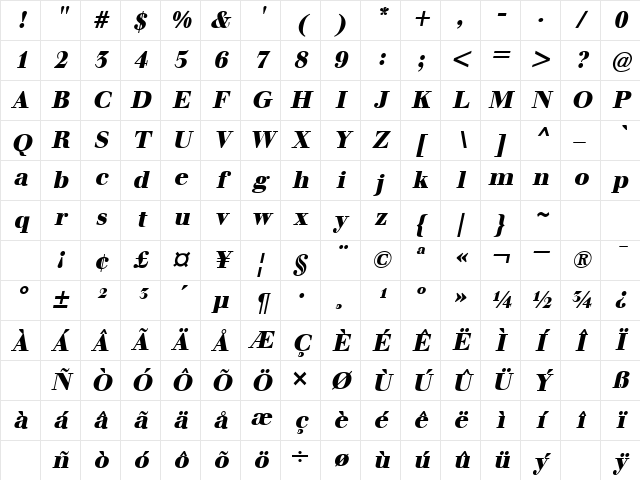
Complete WalterBlack Oblique glyph index. Displaying only characters natively supported by WalterBlack Oblique font.
WalterBlack is a composed and adaptable typeface that performs quietly and consistently across a wide range of design contexts. The slanted form adds forward momentum and visual energy.